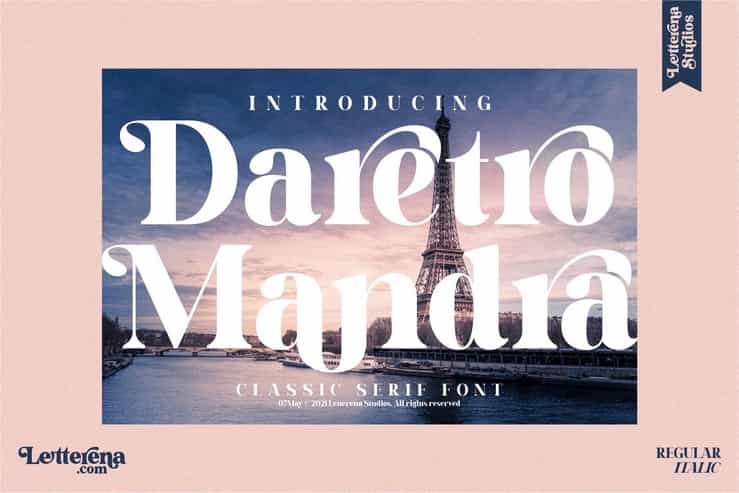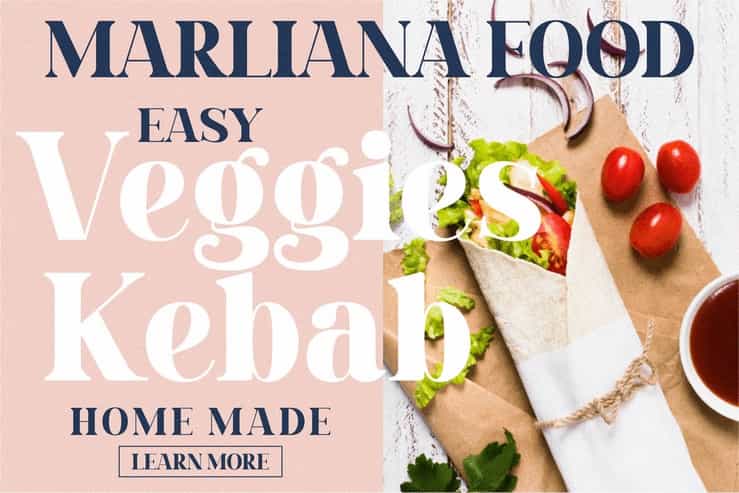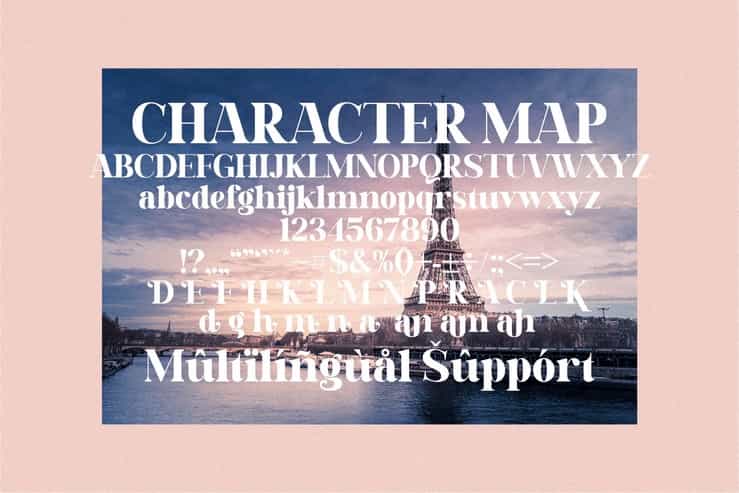
Daretro Mandra Font is an elegant serif typeface designed specifically for luxurious projects like logos, branding projects and homeware designs. Additionally, this font can also be used in packaging products – including mugs with quotes poster images of bags used for shopping T-shirts book covers name cards invitation cards greeting cards labels photographs watermarks events special occasions etc that require this luxurious serif style font.